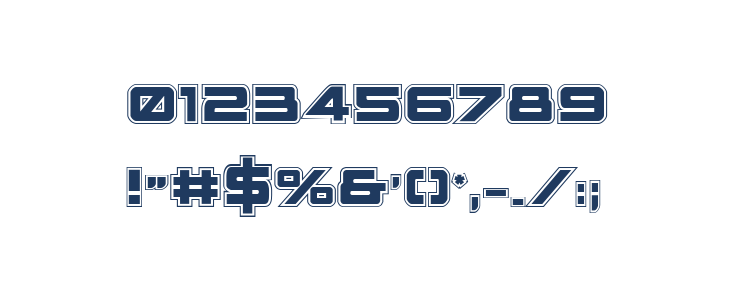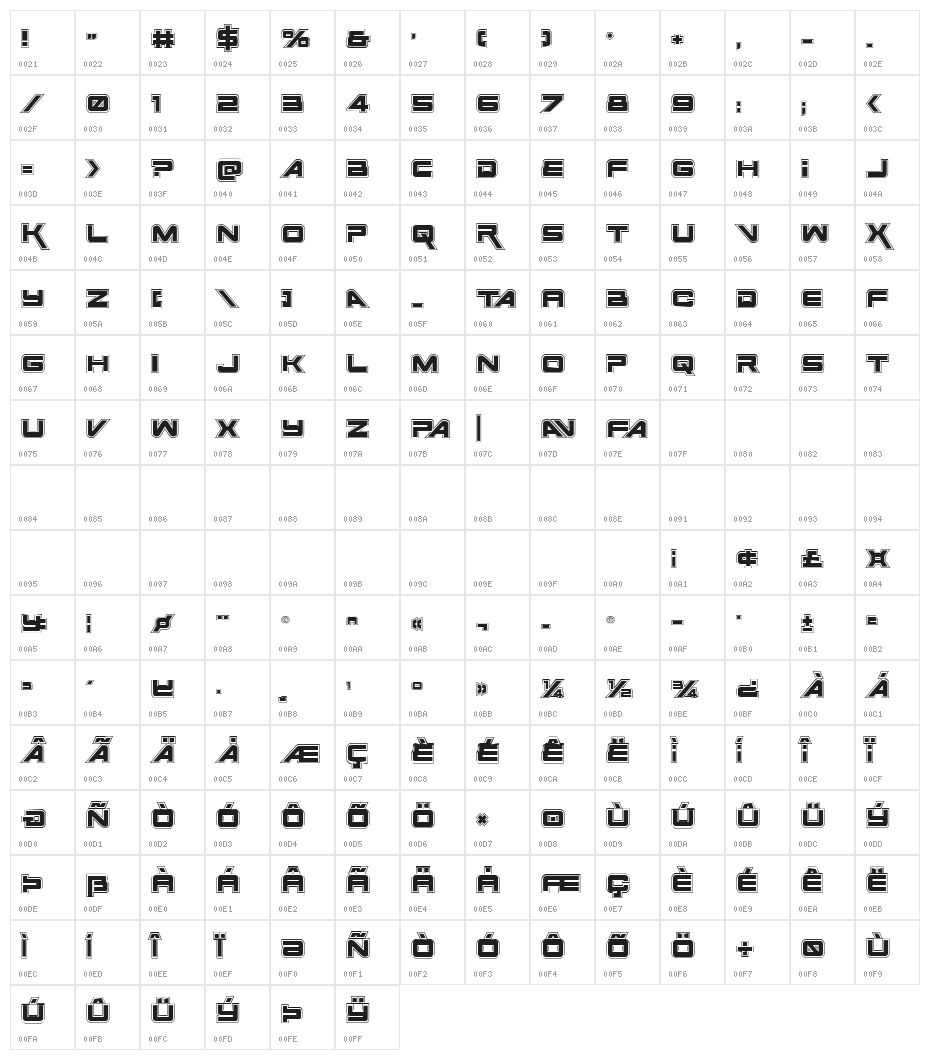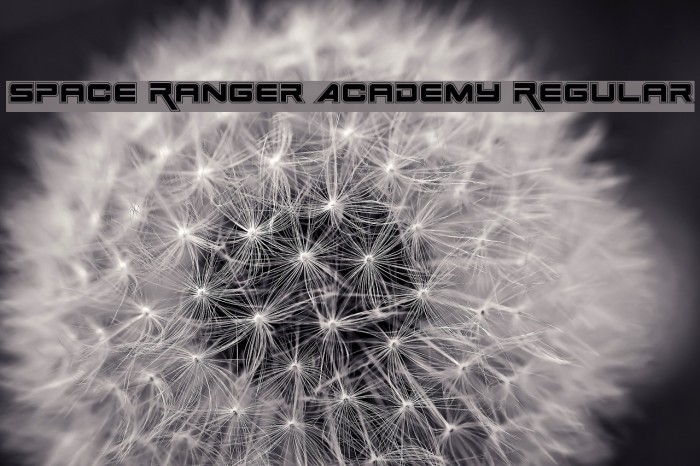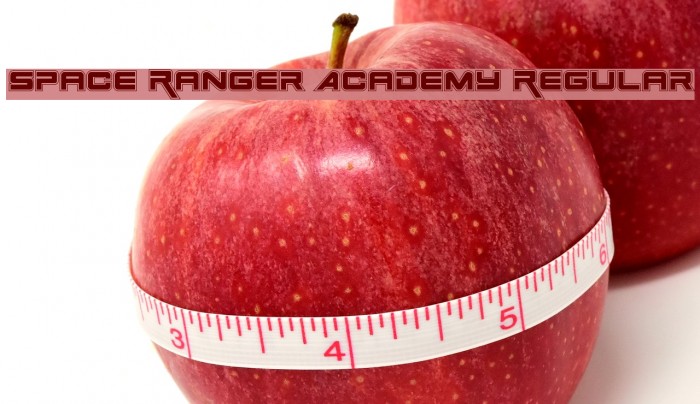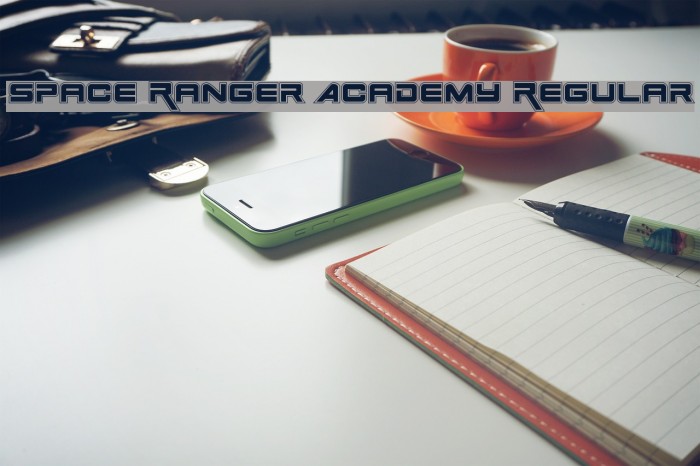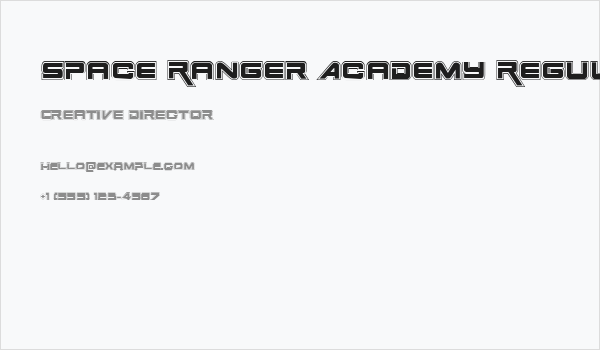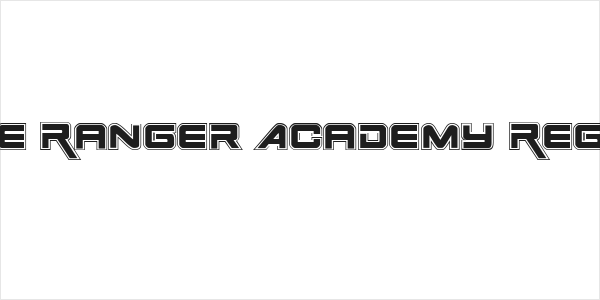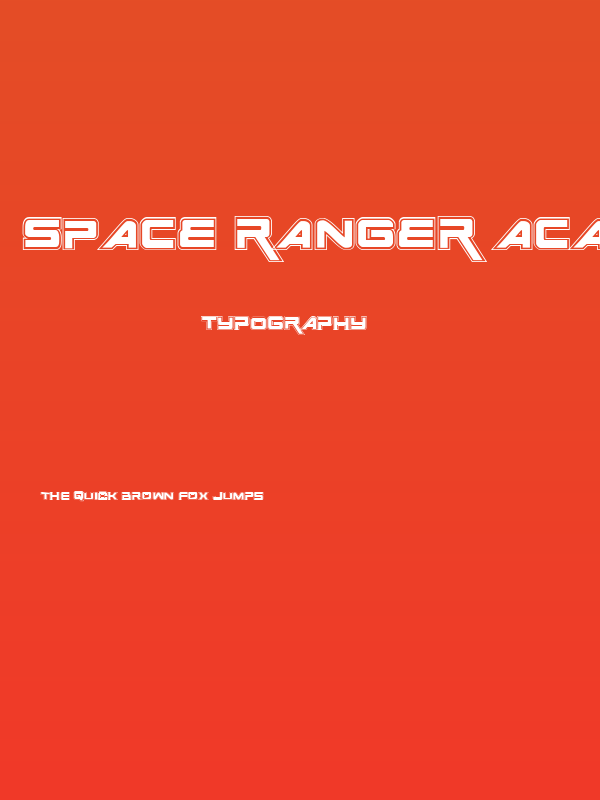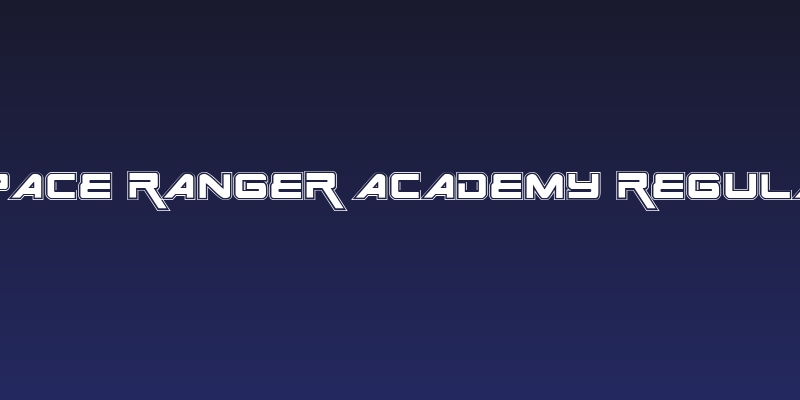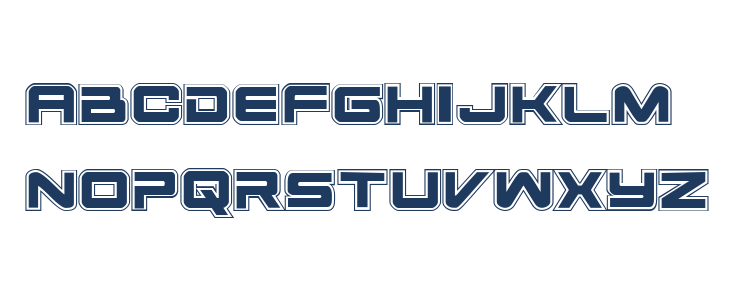
Space Ranger Academy Regular Font
Space Ranger Academy Regular Description
This font features a bold and futuristic design with a strong geometric influence. The characters are outlined with a thick border, giving them a three-dimensional appearance. The angular and sharp edges of the letters convey a sense of speed and modernity, reminiscent of science fiction themes. The uppercase and lowercase letters maintain a consistent style, with the uppercase being particularly striking due to its boldness. Numbers and special characters are designed to match the overall aesthetic, making this font suitable for dynamic and eye-catching designs.
| Proposed Projects | Ideal for sci-fi themed projects, video game titles, movie posters, and branding that requires a modern and dynamic look. |